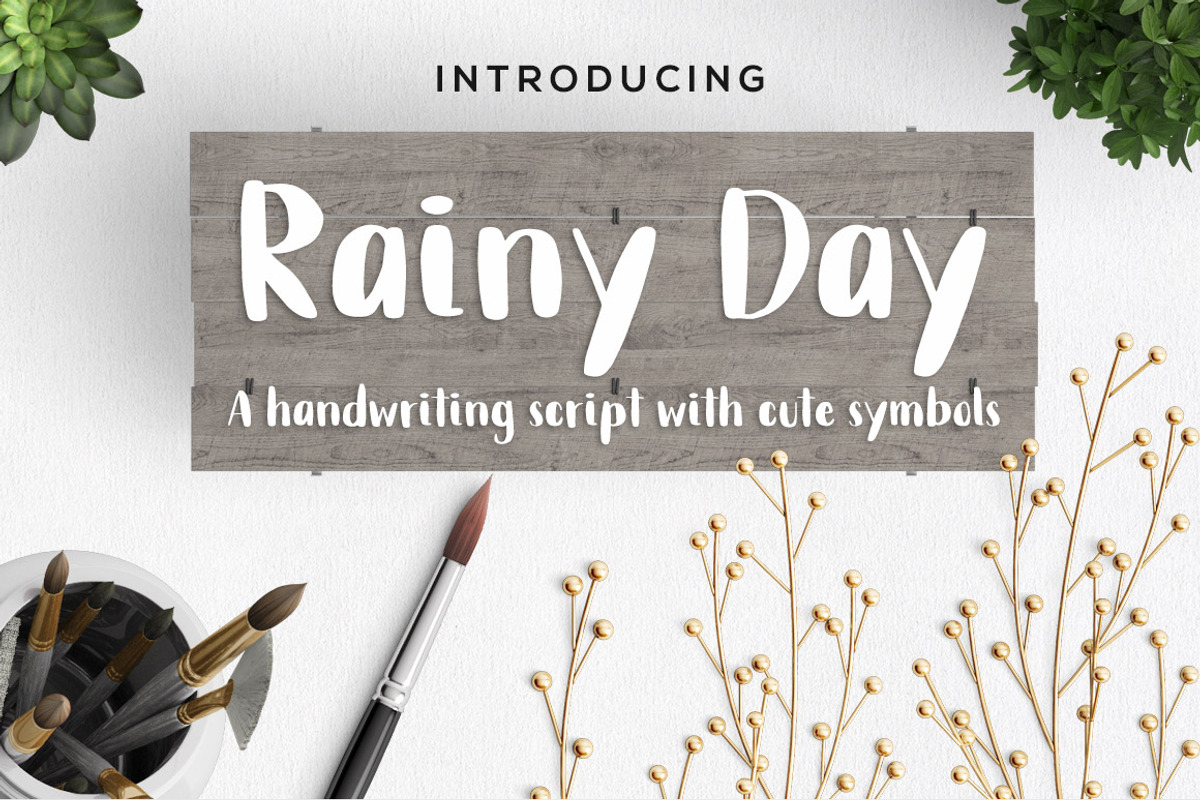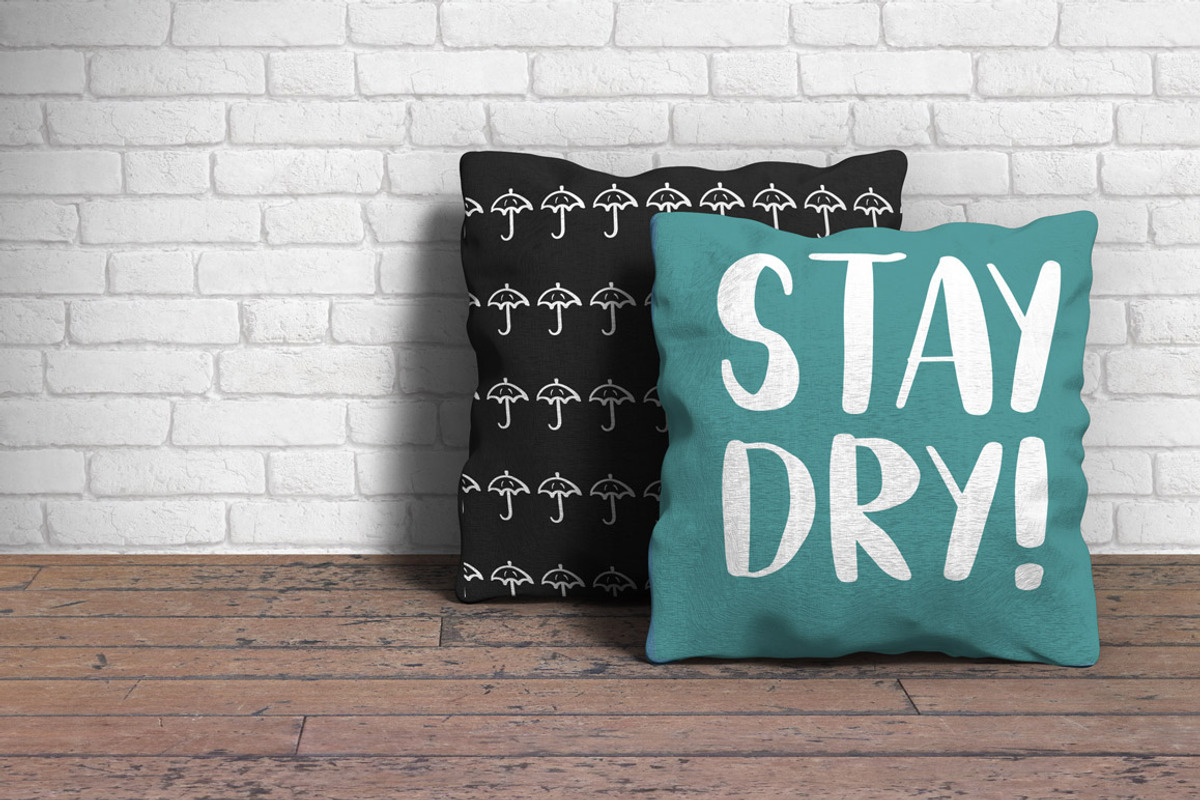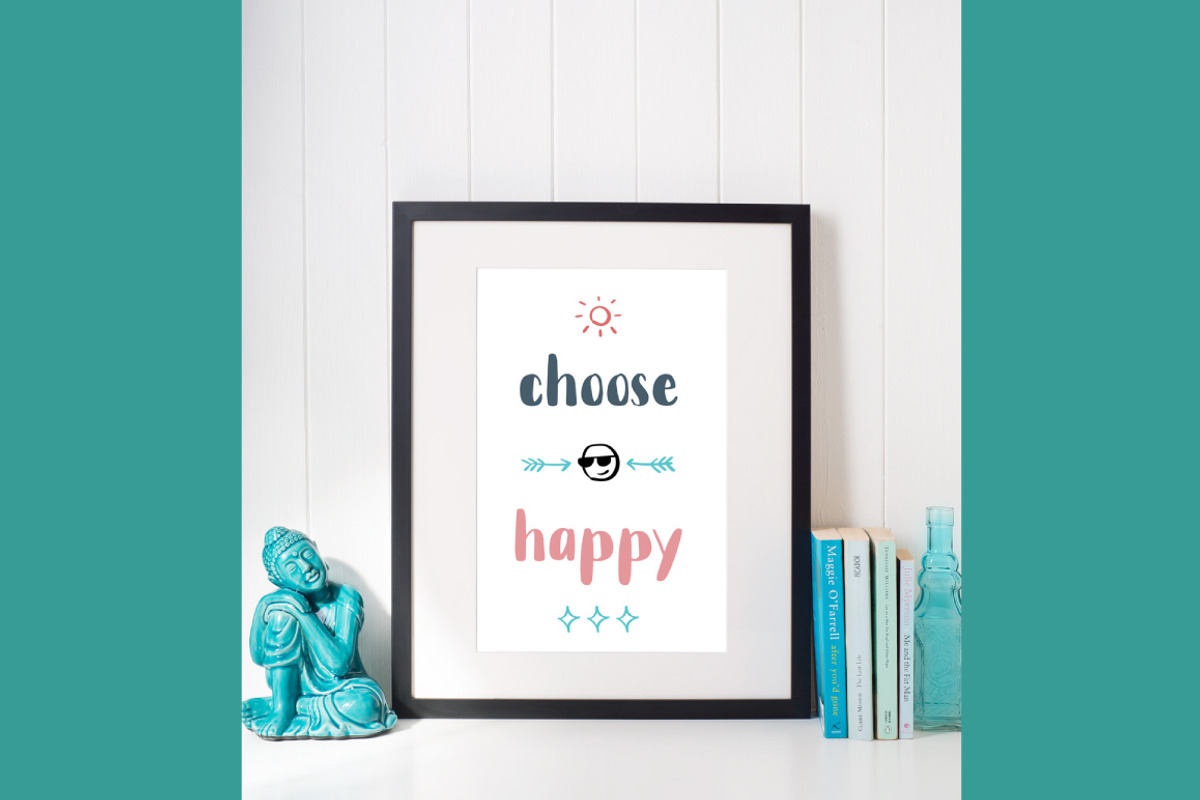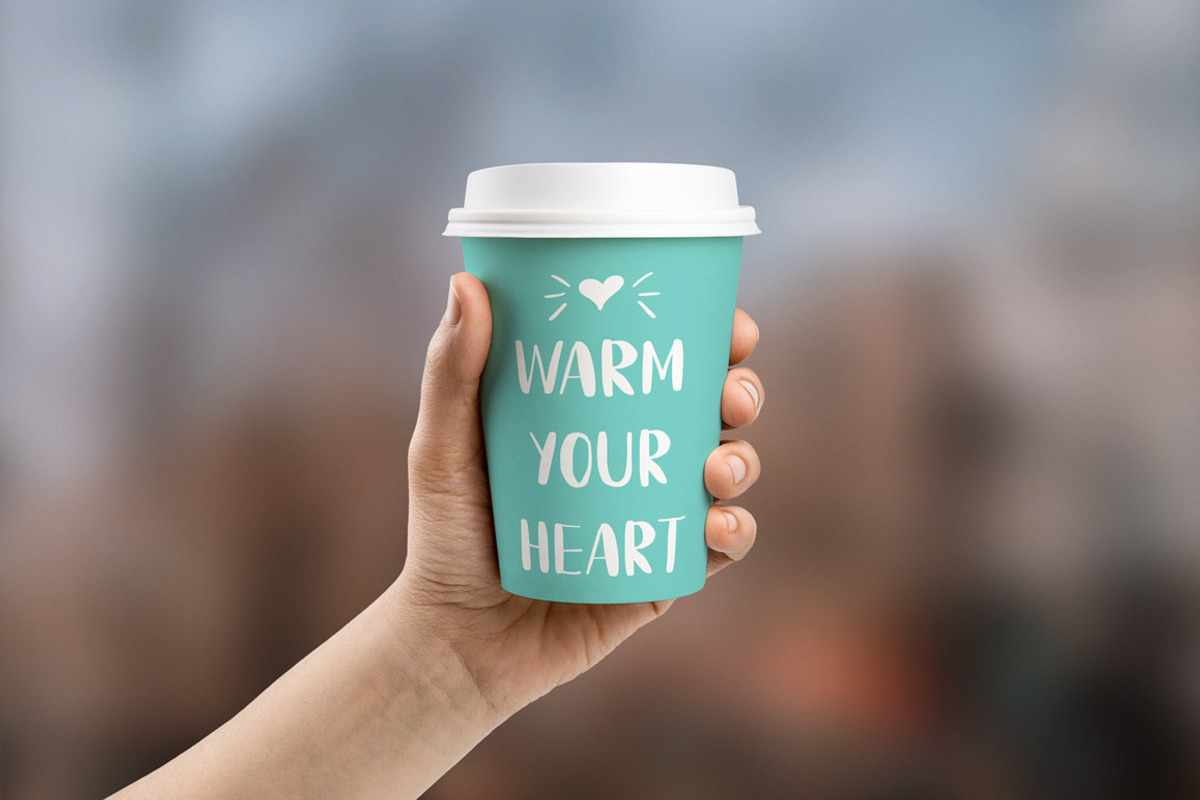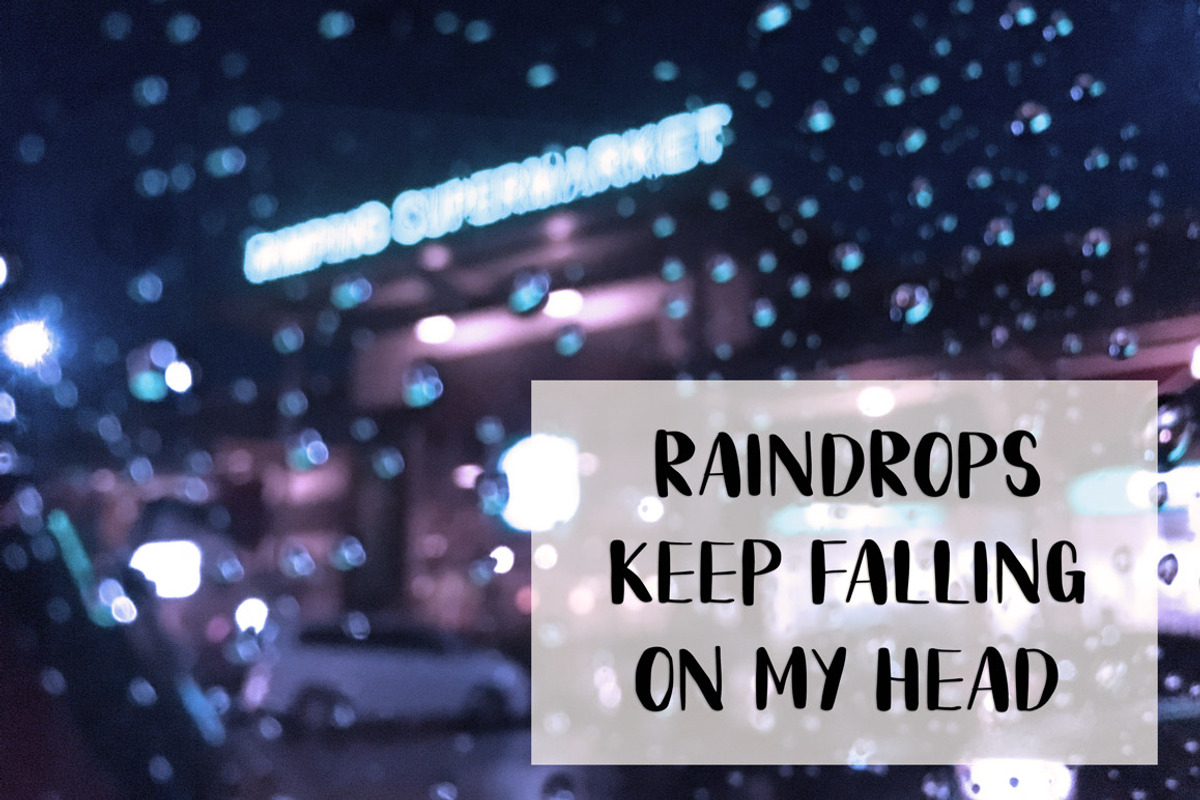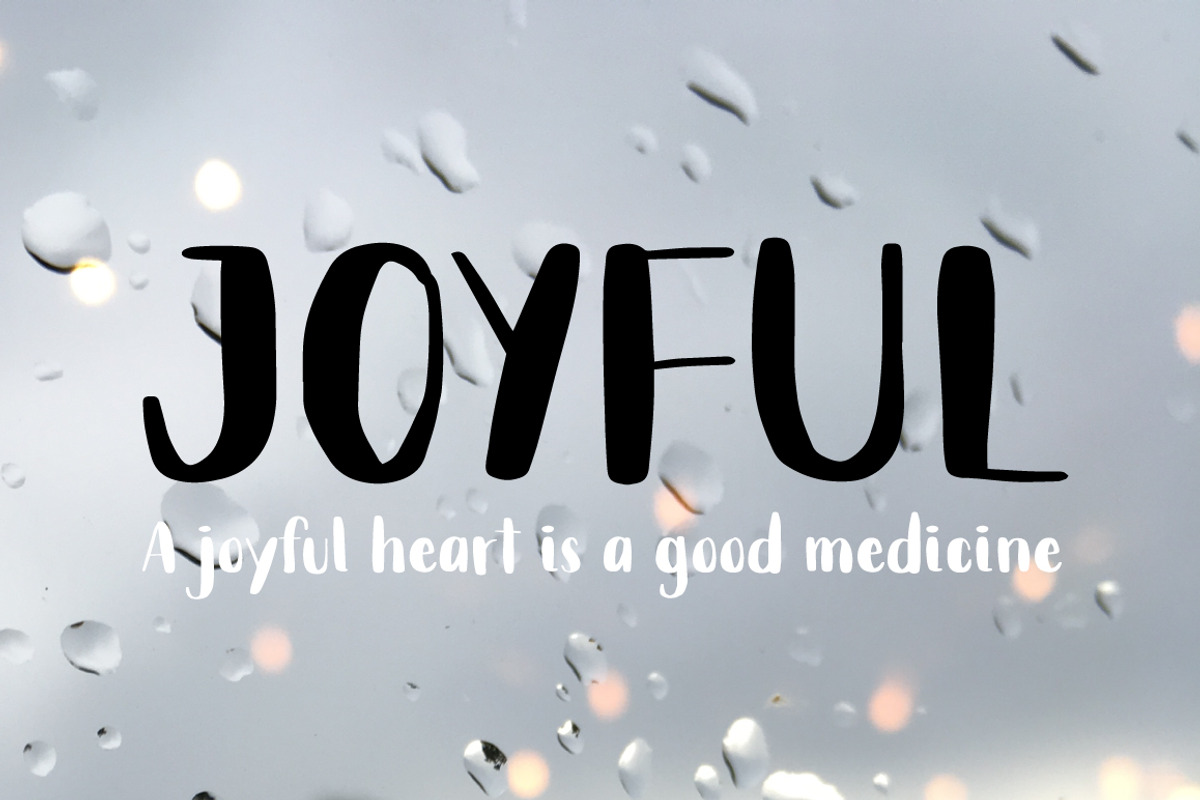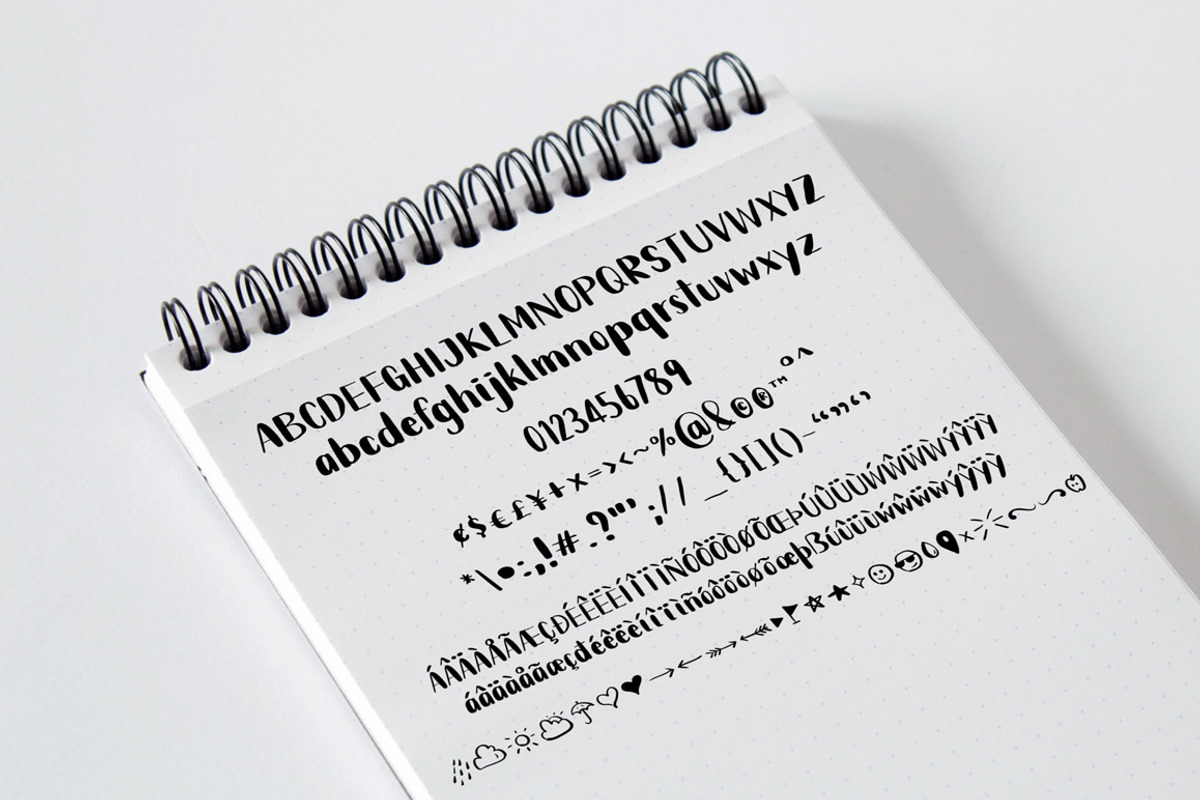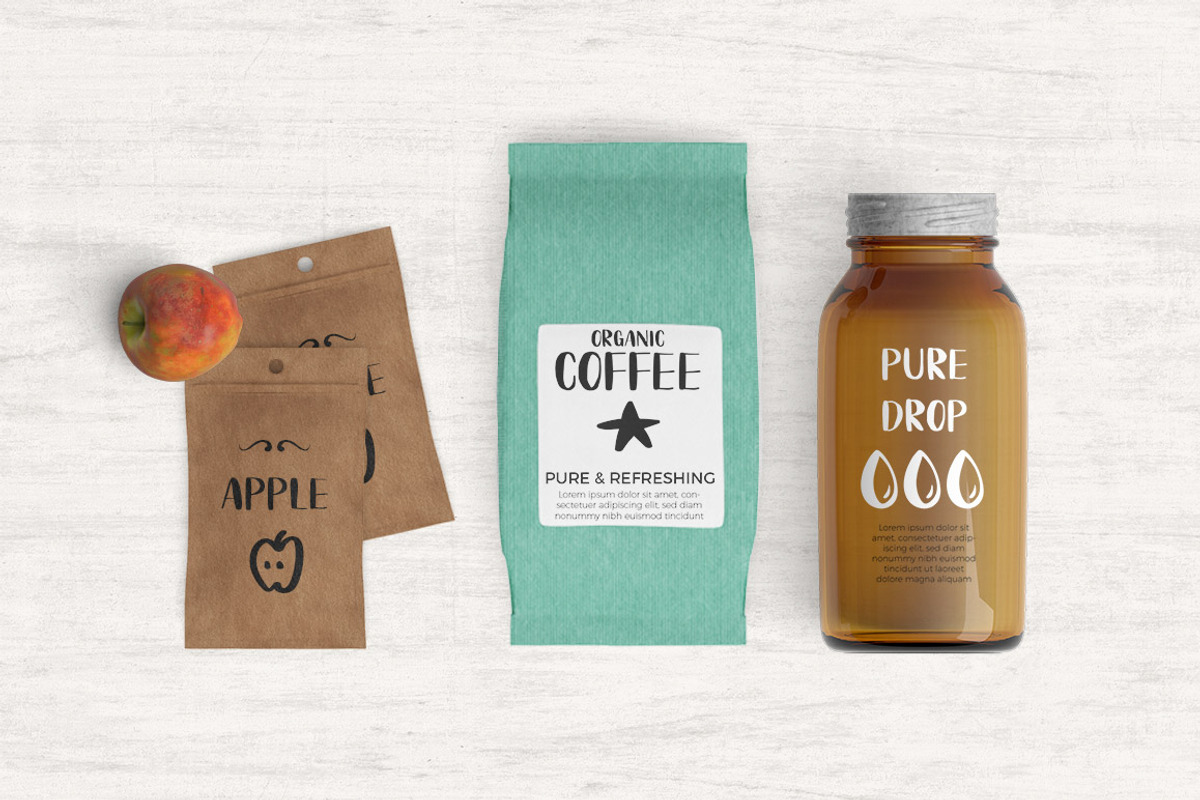
Rainy Day Handwriting Script Font
Rainy Day is a handwriting script typeface designed to give off calm and relaxed vibe. It was inspired by one peaceful rainy day I was sitting and created this font.
Multilingual support is included for Western European languages. And it also come with cute doodle symbols!
- Multilingual support is included for Western European languages.